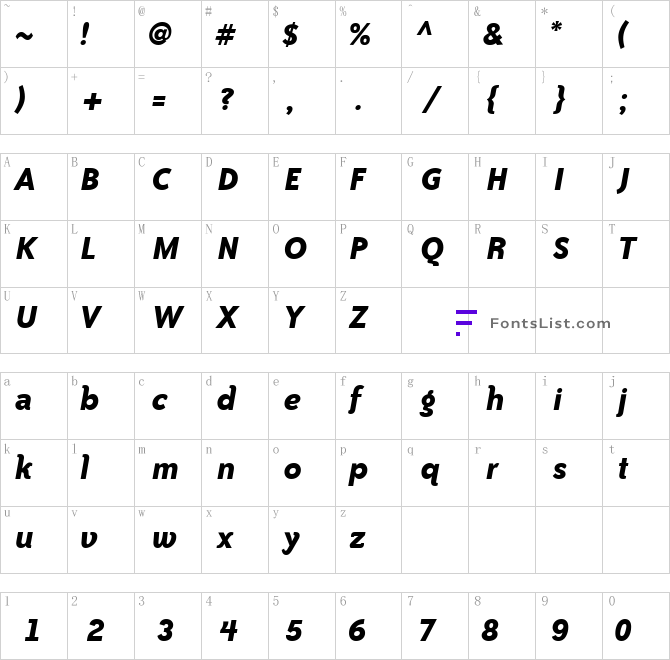
- Font Name:Bailey Sans ITC Book
- Subfamily:LinotypeLibraryGmbH: Bailey Sans ITC Bold Italic: 2001
- Full Name:Bailey Sans ITC Bold Italic
Bailey-Sans-ITC-Bold-Italic.ttf is a very beautiful artistic font, Bailey-Sans-ITC-Bold-Italic.ttf is widely used in the design and printing of various books and pictures,Bailey-Sans-ITC-Bold-Italic.ttf has a strong visual impact,Bailey-Sans-ITC-Bold-Italic.ttf is a commonly used font in newspapers, magazines and books, and is used in posters, e-commerce Poster design, store design, logo design, font design and other fields.Bailey-Sans-ITC-Bold-Italic.